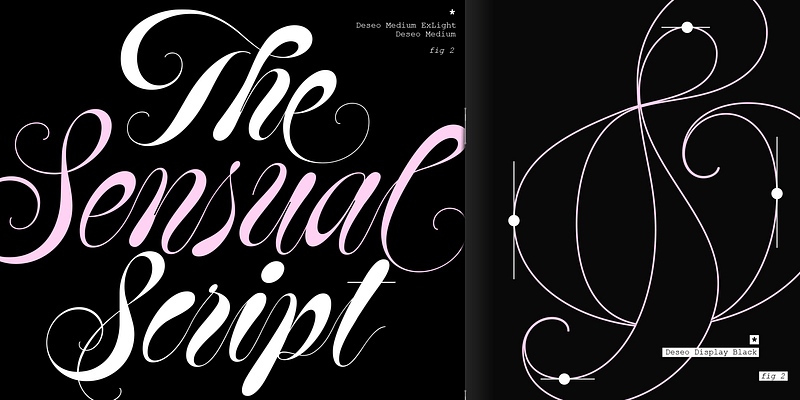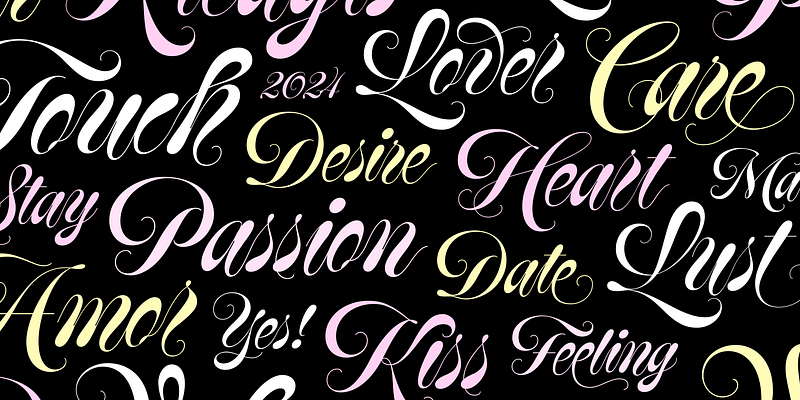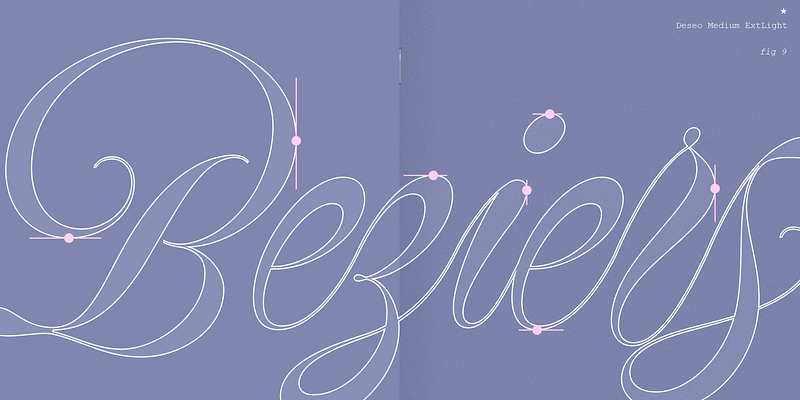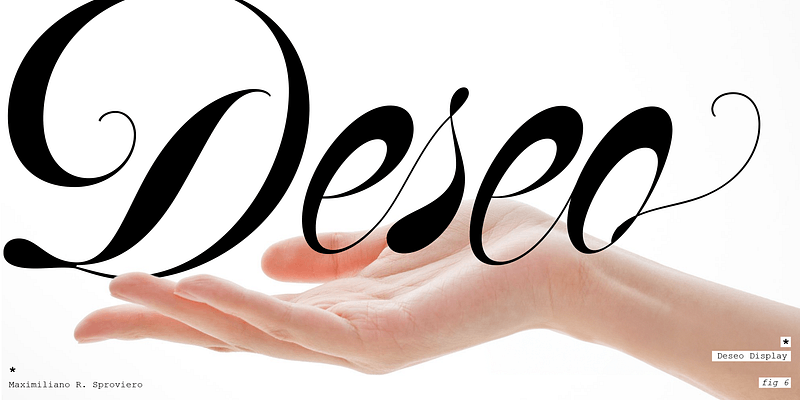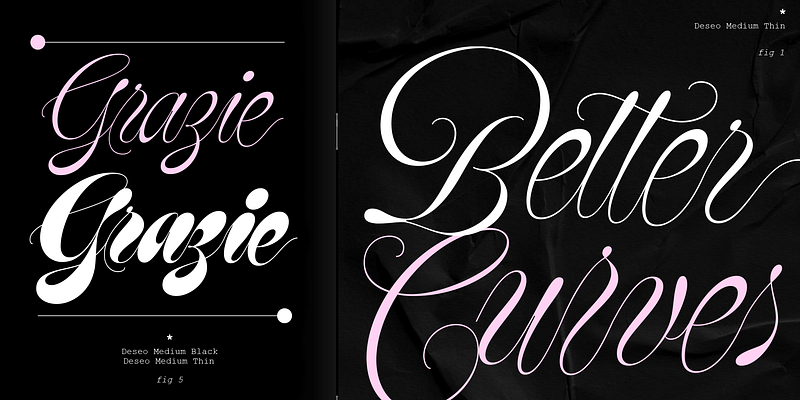
Deseo is an artfully exaggerated Spencerian script inspired by the 20th-century masters. Depending on context, it also pays homage to the nuances of the Italian Hand’s sophisticated elegance with its dynamically shifting strokes. Follow the sinuous contrast and curves. With several alternates for each character, plus additional ornamental flourishes, creating display typography that seduces and allures the reader will be no challenge. Deseo is a variable font with 3 axis: weight, size, and accolades.